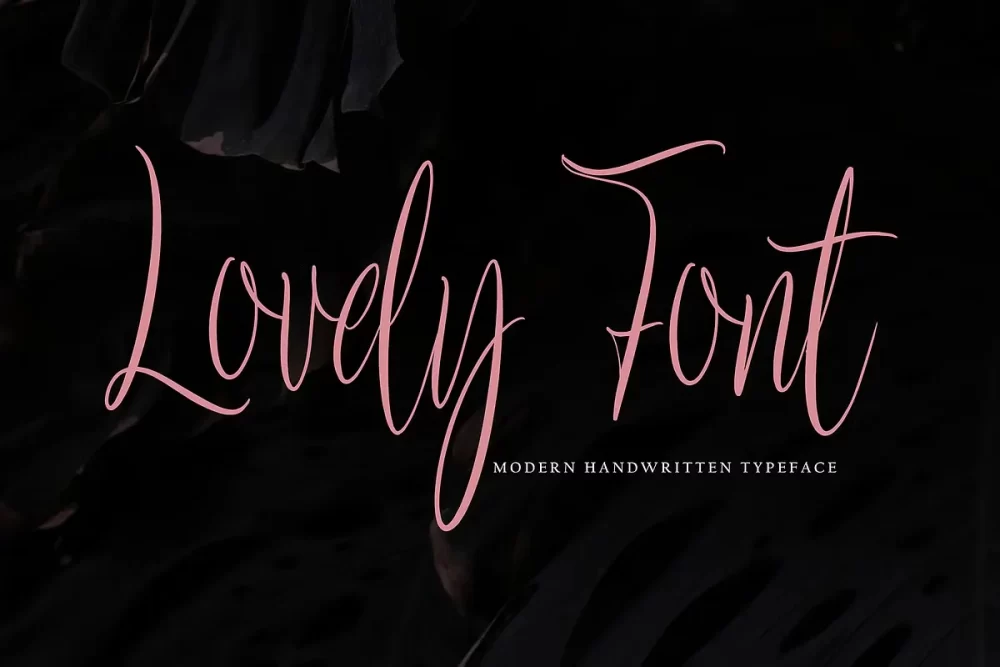
Lovely Font
Lovely with a new style, this font will be perfect for many different projects ex: quotes, logos, blog headers, posters, banding, letters, invitations, stationery, etc.